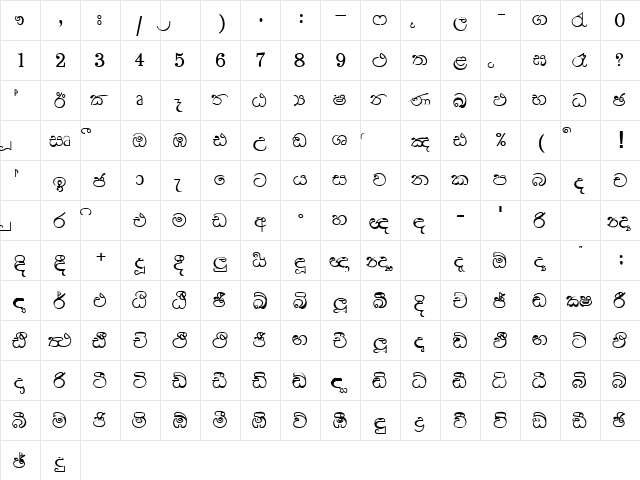
DL-Manel-bold.-xx Normal Font Preview
DL-Manel-bold.-xx Normal
Design Context for DL-Manel-bold.-xx Typeface
DL-Manel-bold.-xx offers clean, dependable letterforms without strong stylistic allegiance, making it a practical choice for designers who need flexibility. The heavy weight commands attention and anchors typographic hierarchies.